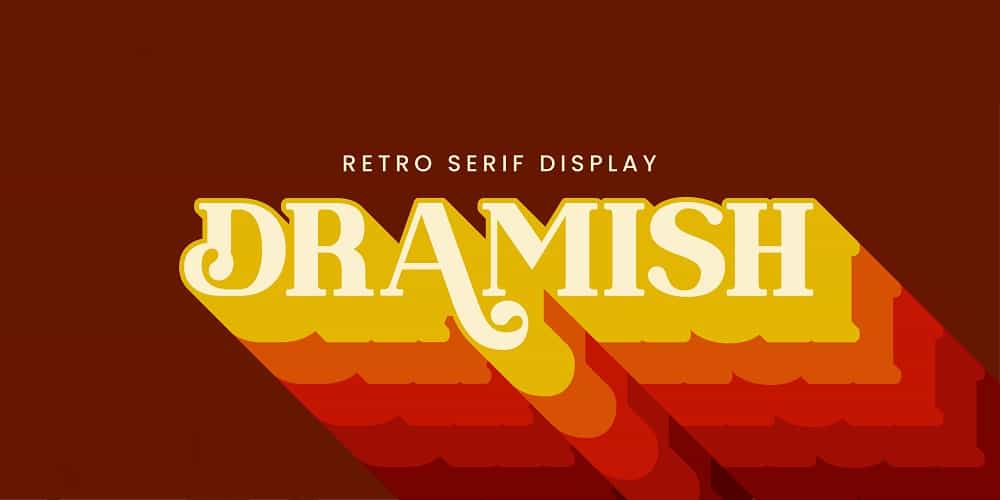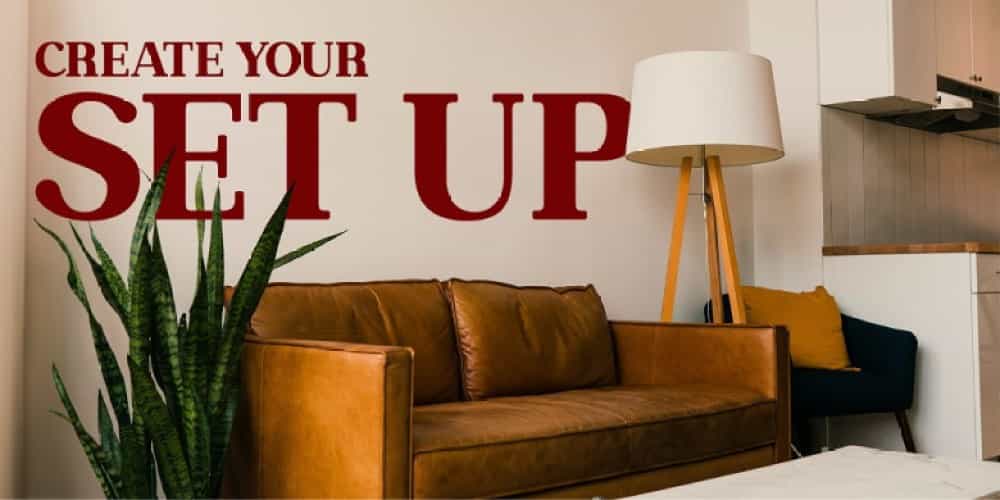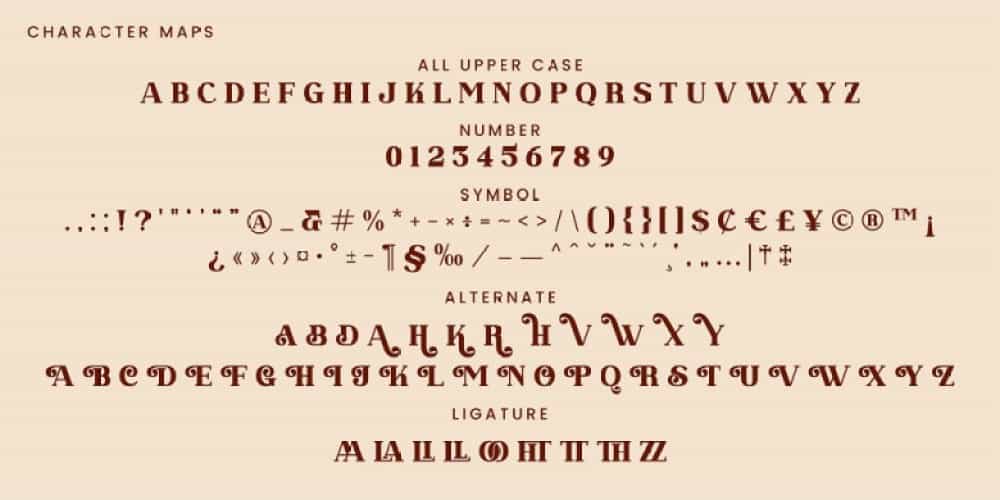
Dramish Font
Dramish is a new font that has a retro style, it is a bold display font with serifs and all capital letters, and includes alternate characters and ligatures. This font suitable for logotype, logo text, graphic design for retro style.